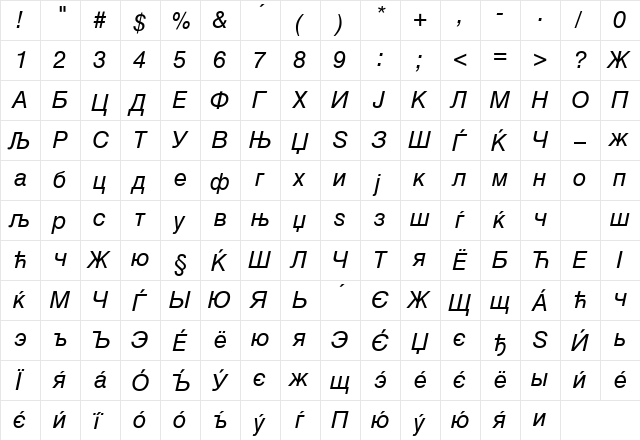
MAC C Swiss Italic
Design Context for MAC C Swiss Typeface
MAC C Swiss is a composed and adaptable typeface that performs quietly and consistently across a wide range of design contexts. Its italic angle brings a sense of urgency and motion to the letterforms.
Pro Tip: Try MAC C Swiss for annotation and caption copy alongside an upright companion — the contrast in angle creates a dynamic but ordered typographic system.